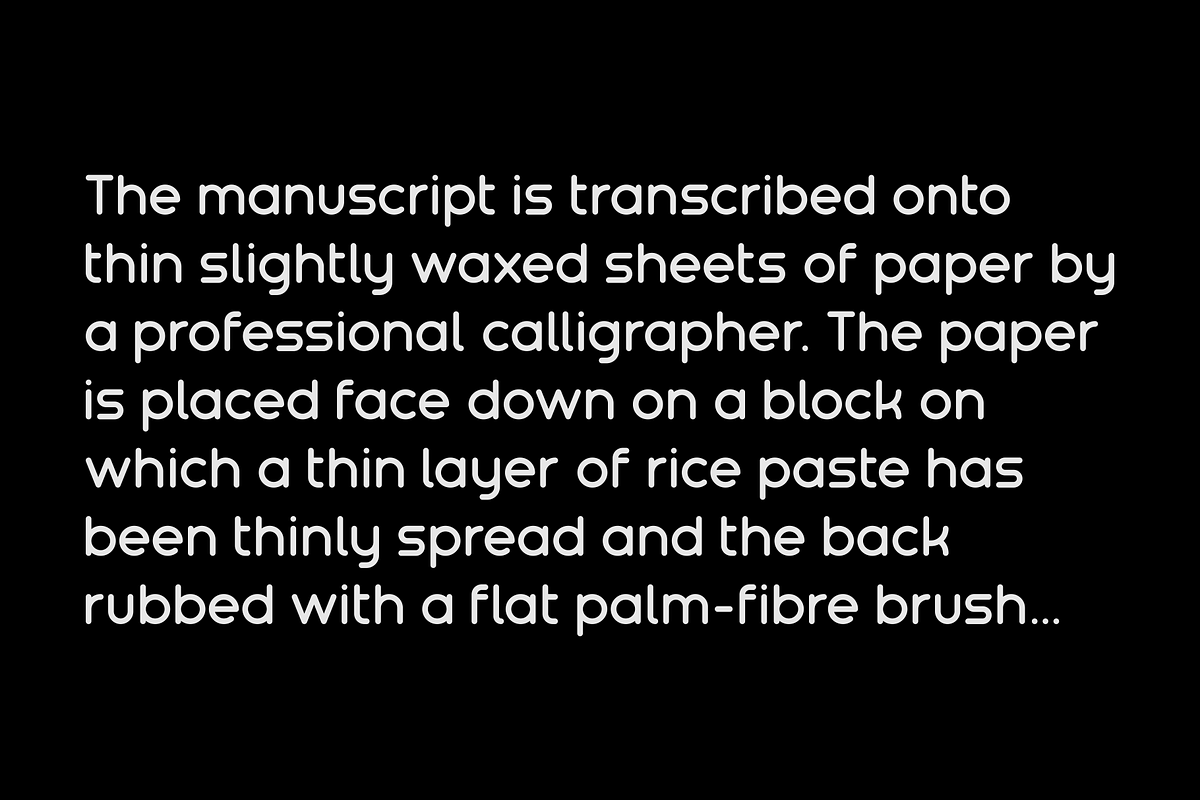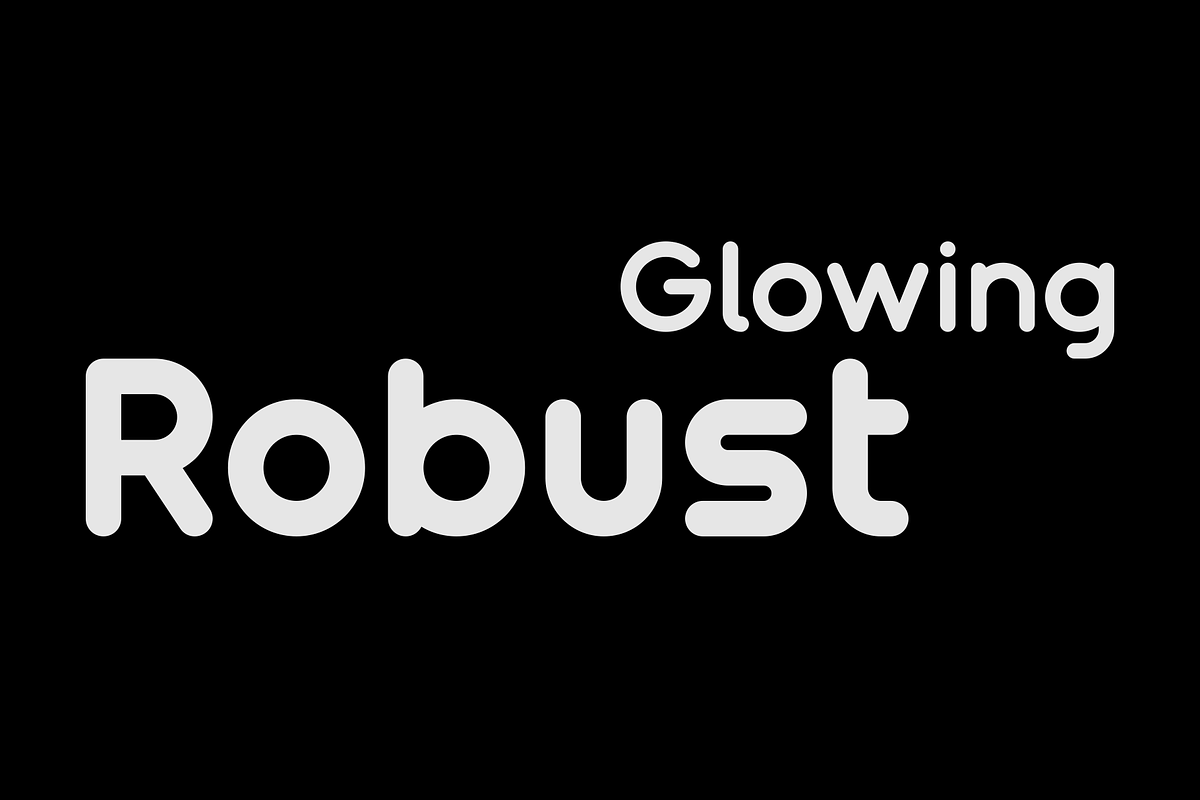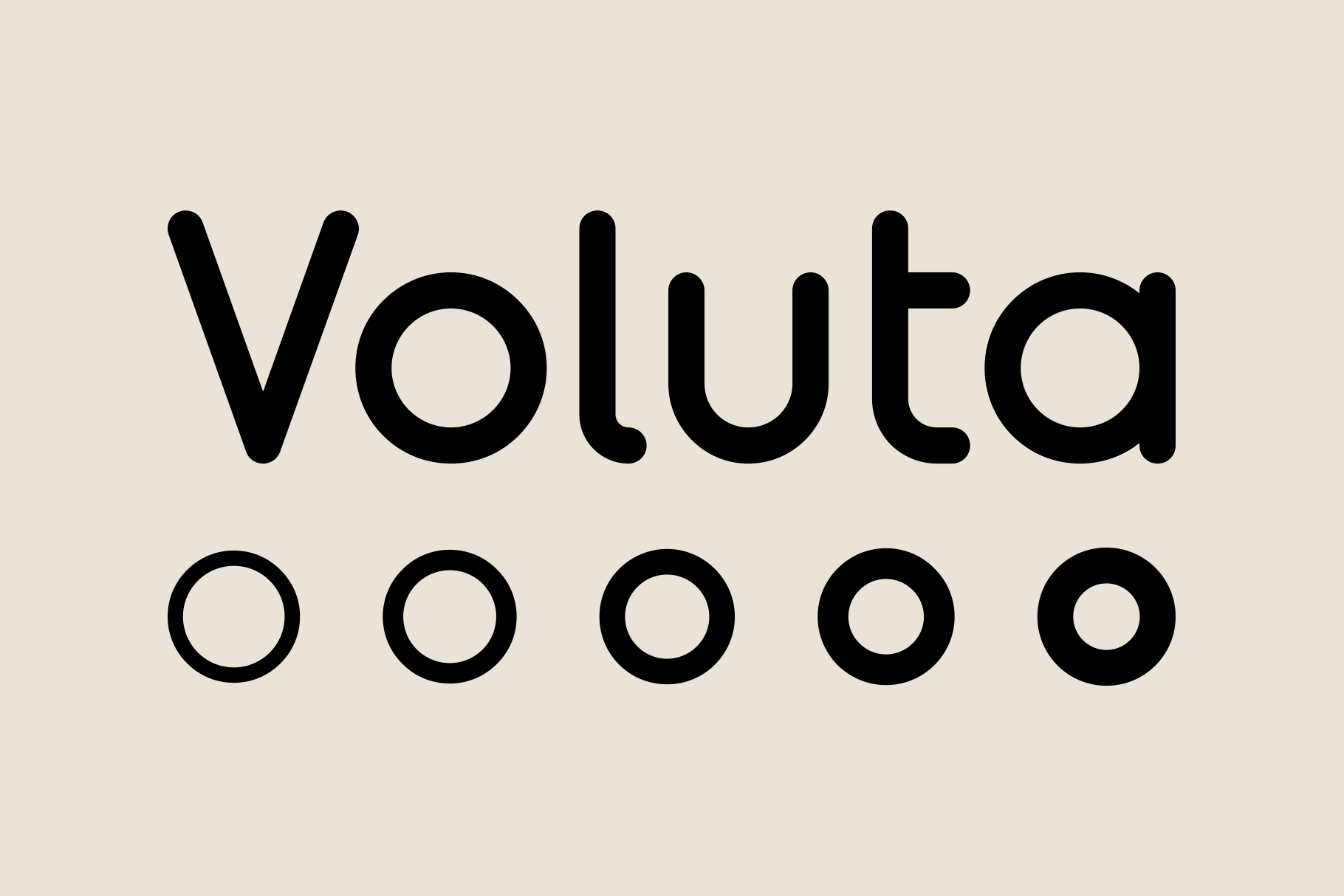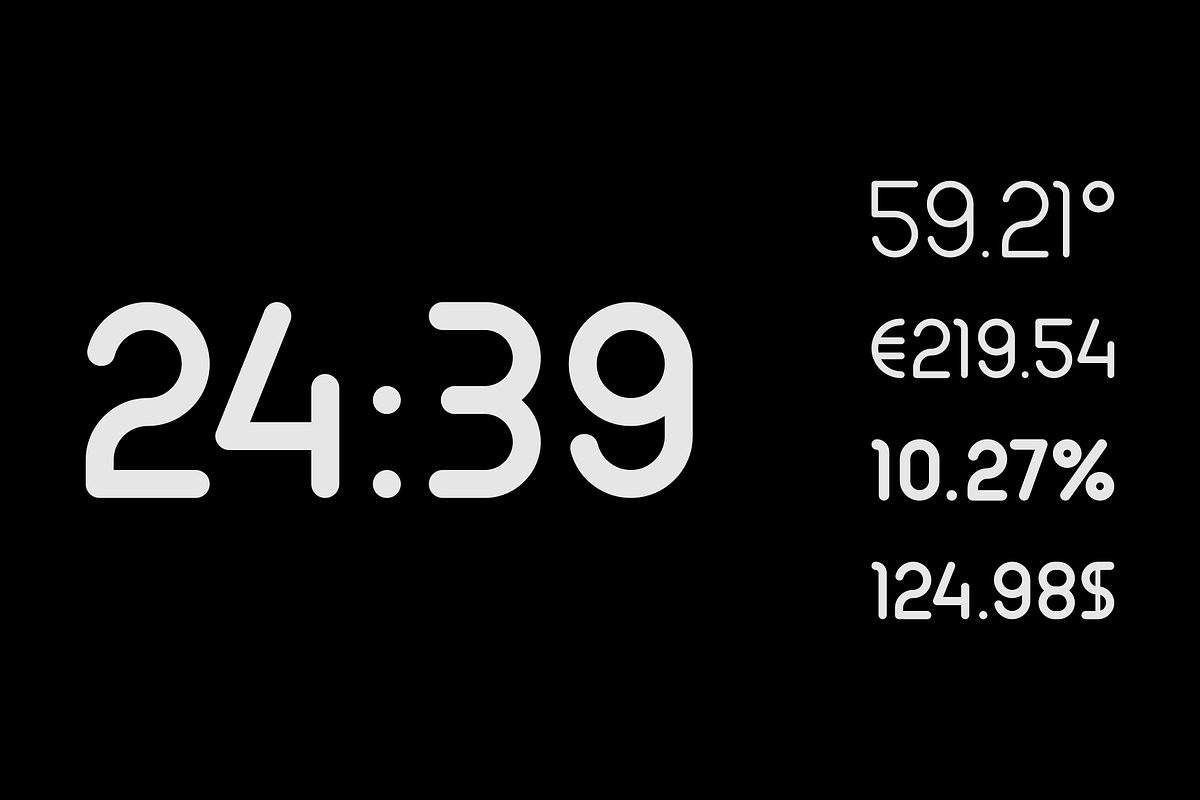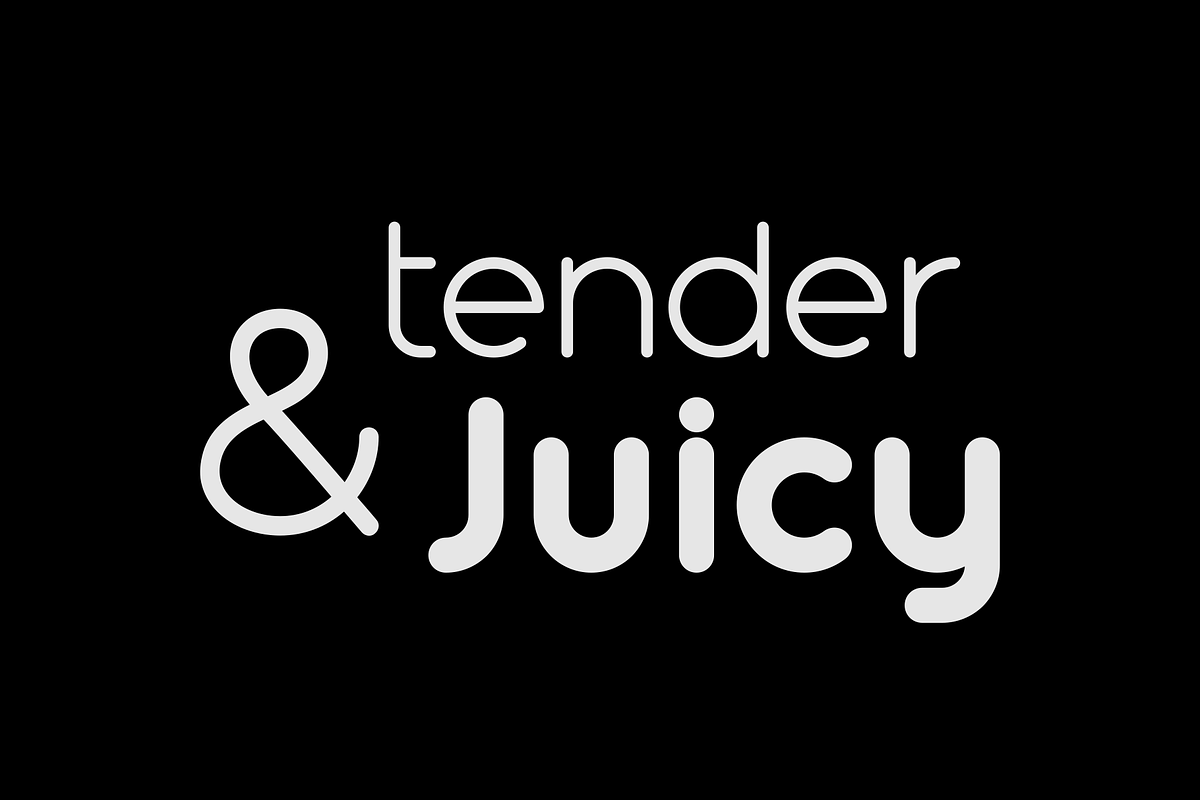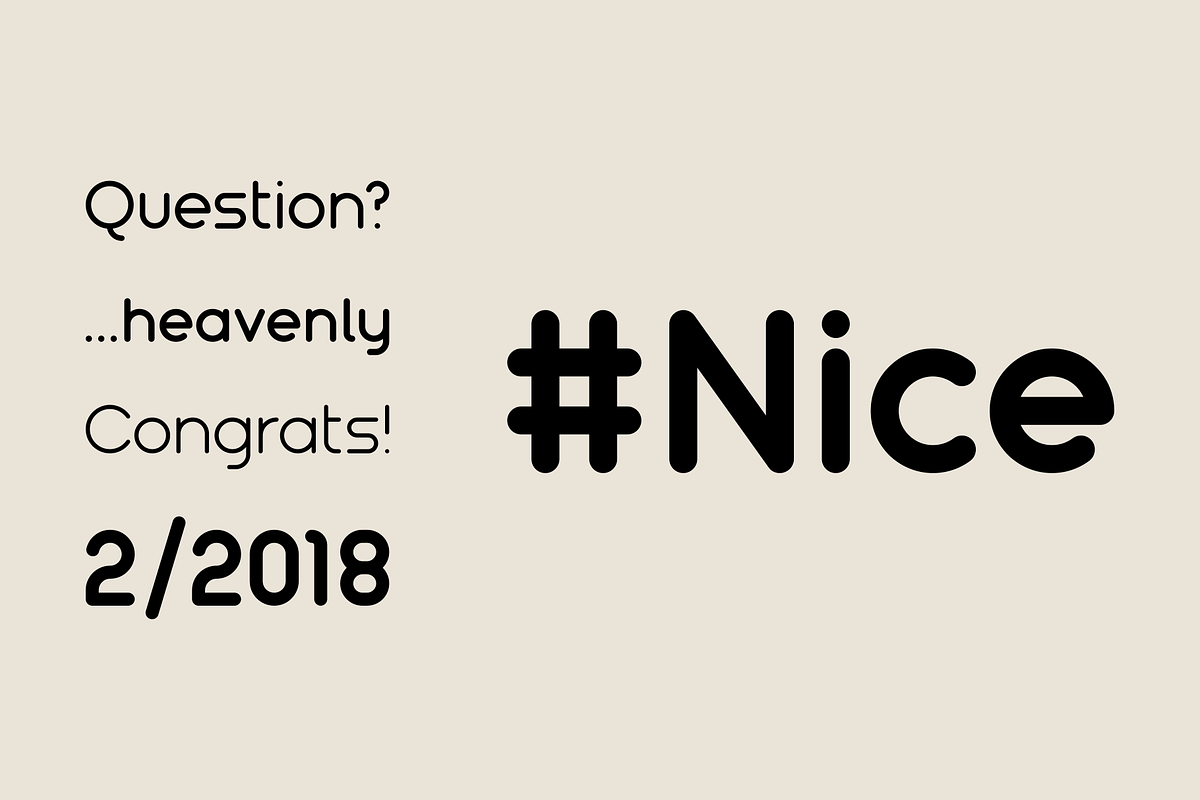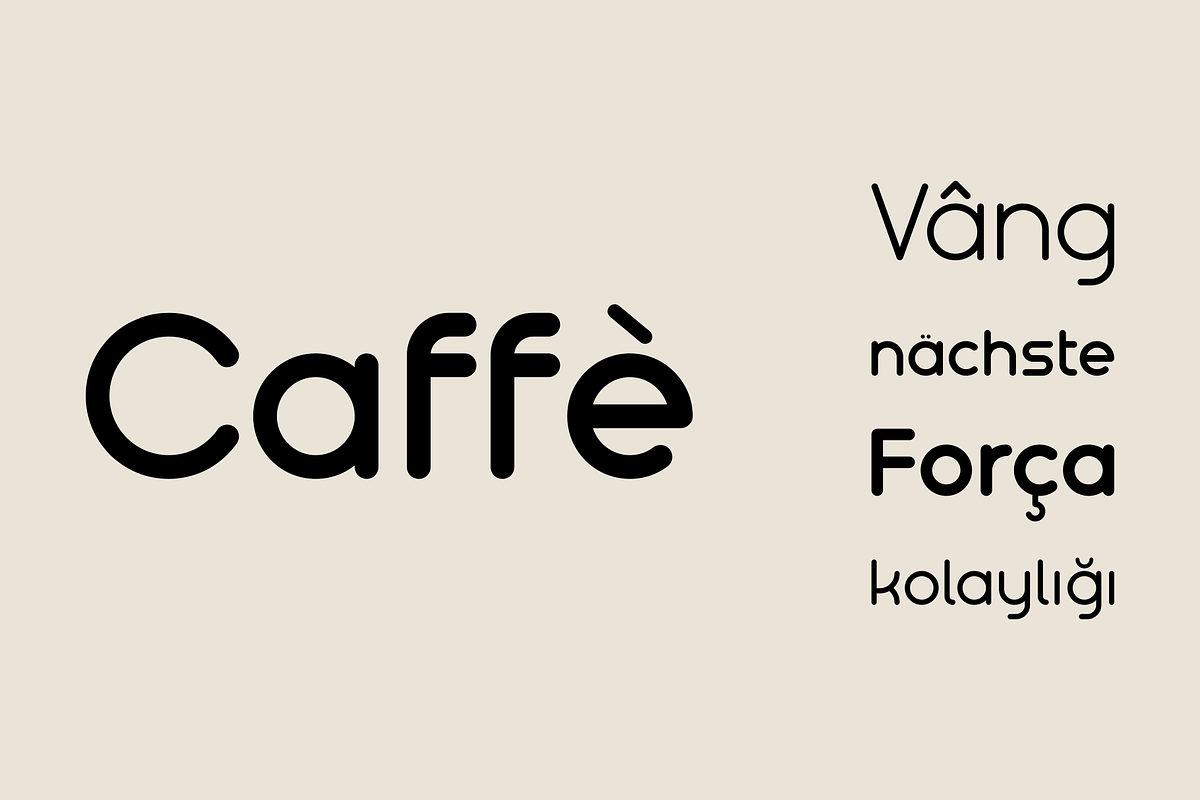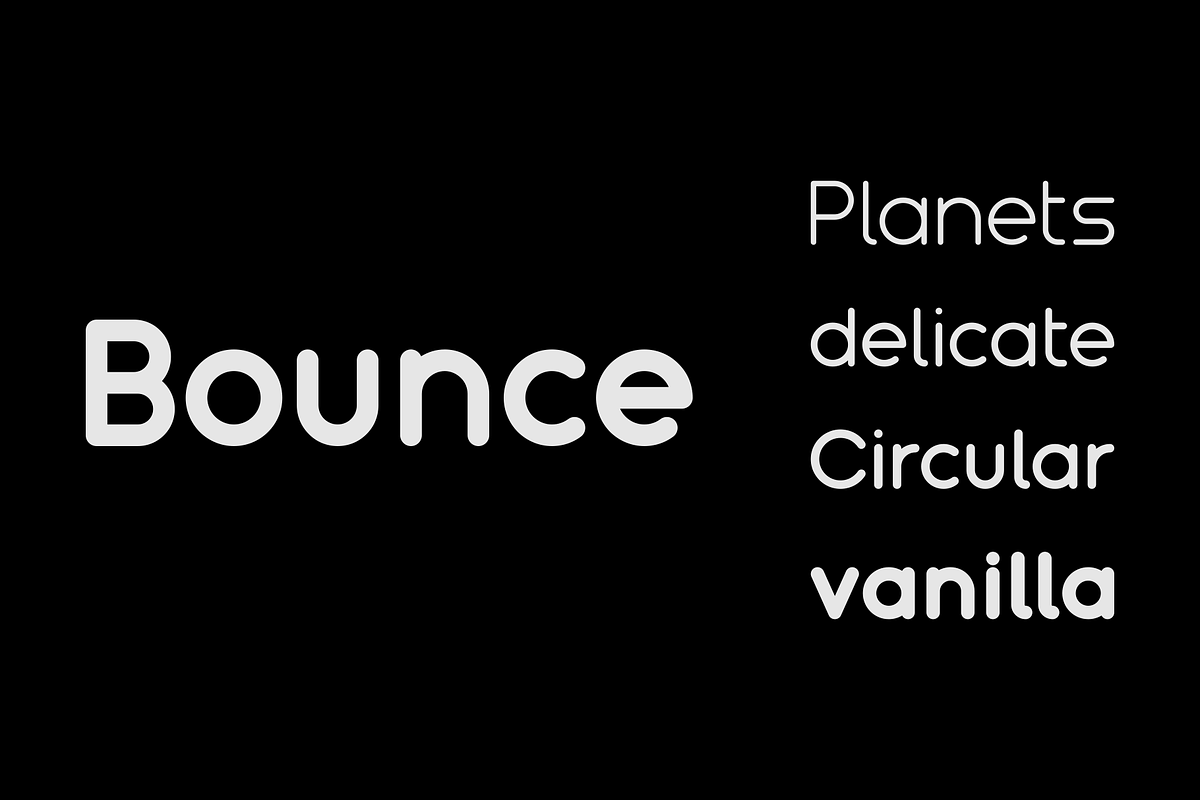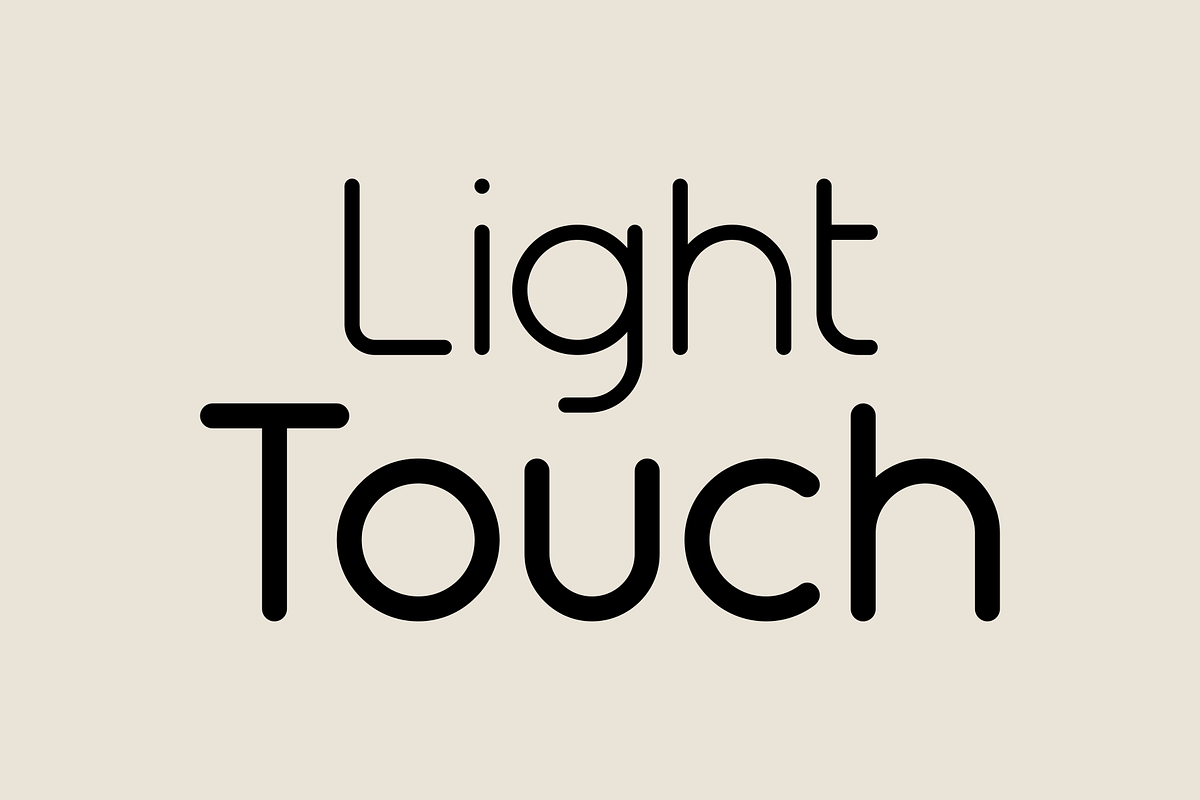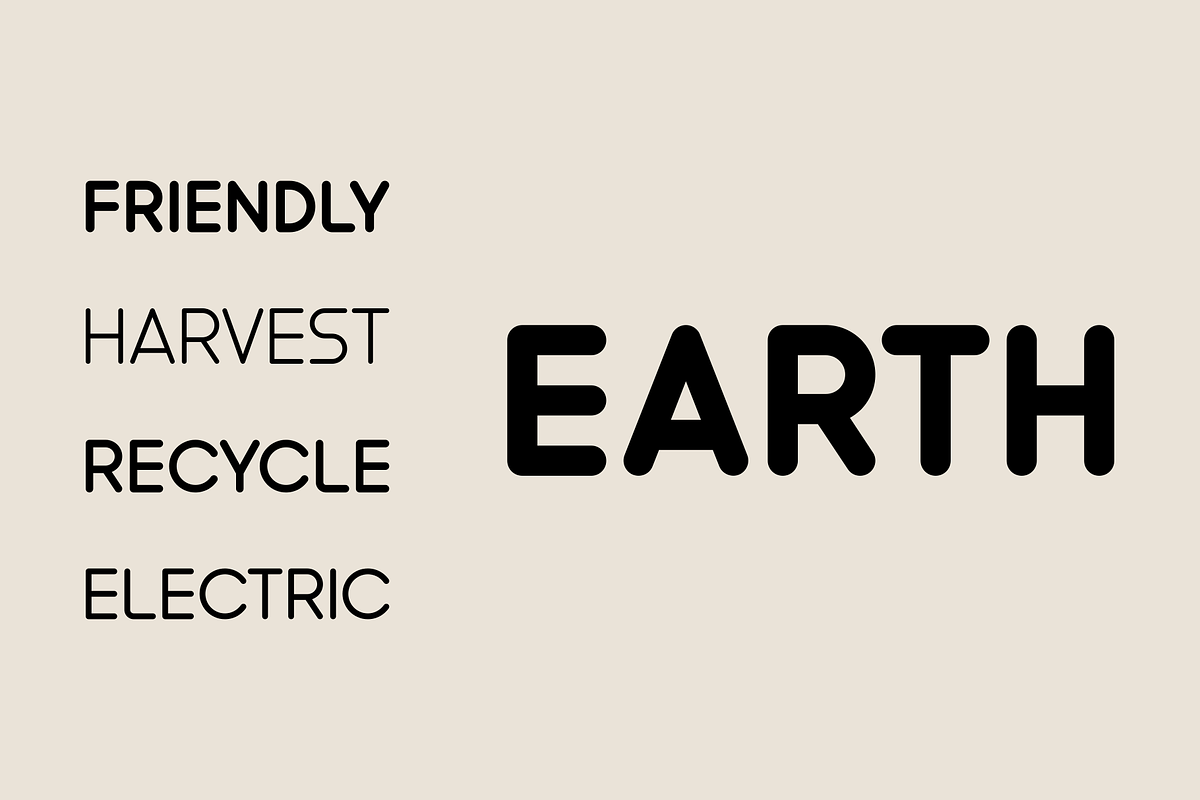
Voluta – Font Family
Voluta is a font family shaped from spherical curves inspired by celestial bodies.
• 114 Languages • 508 Glyphs • 5 Weights • 5 Styles